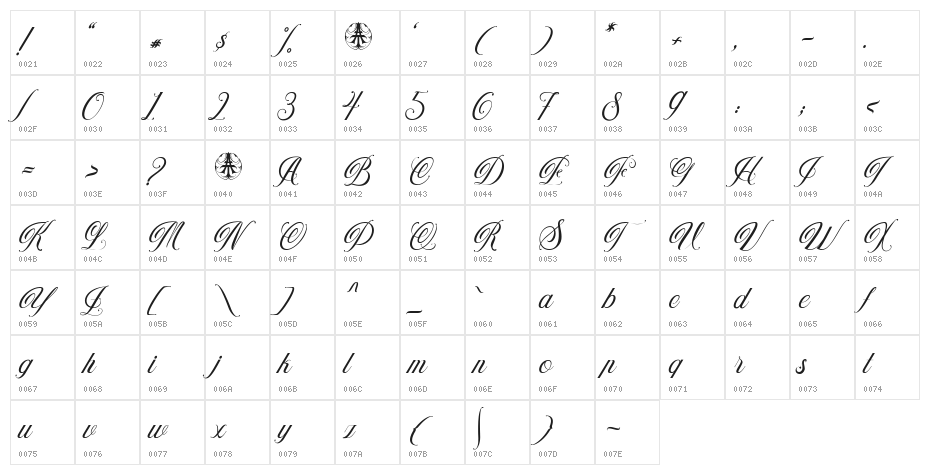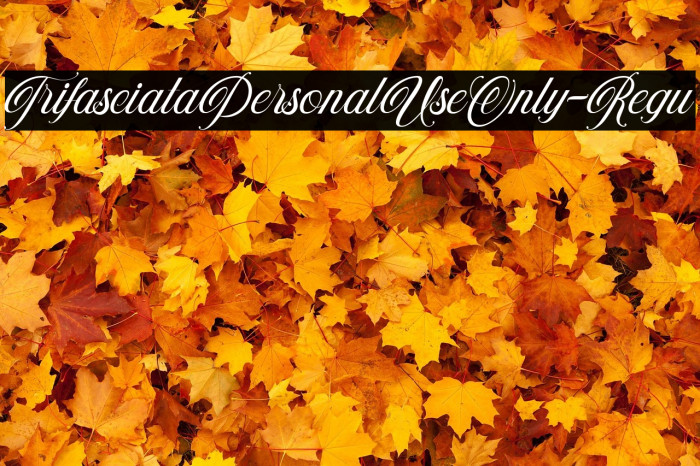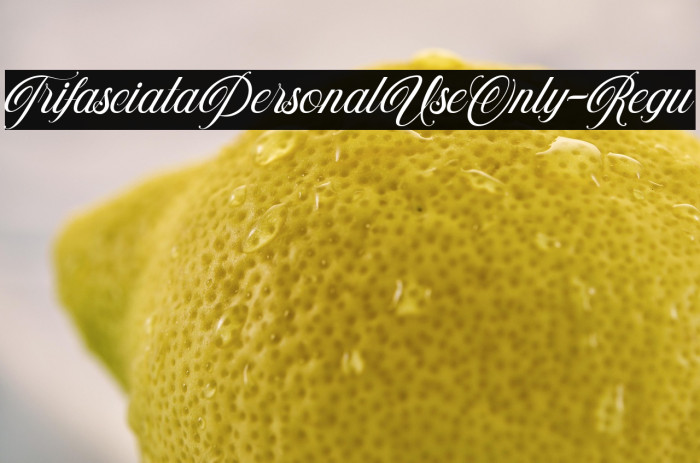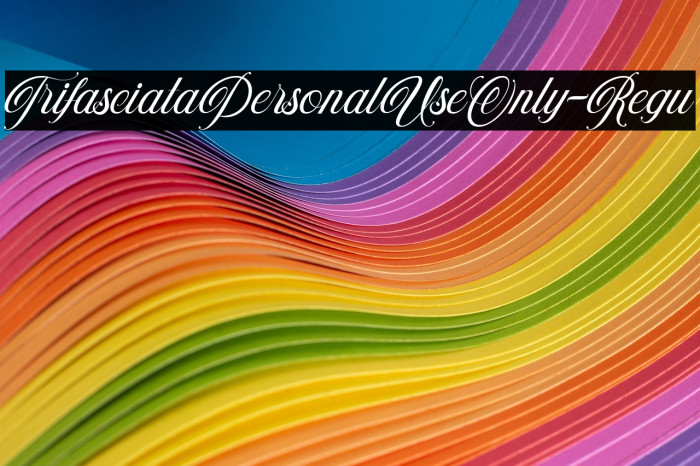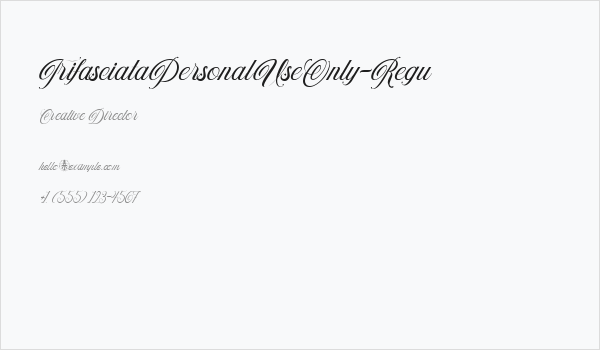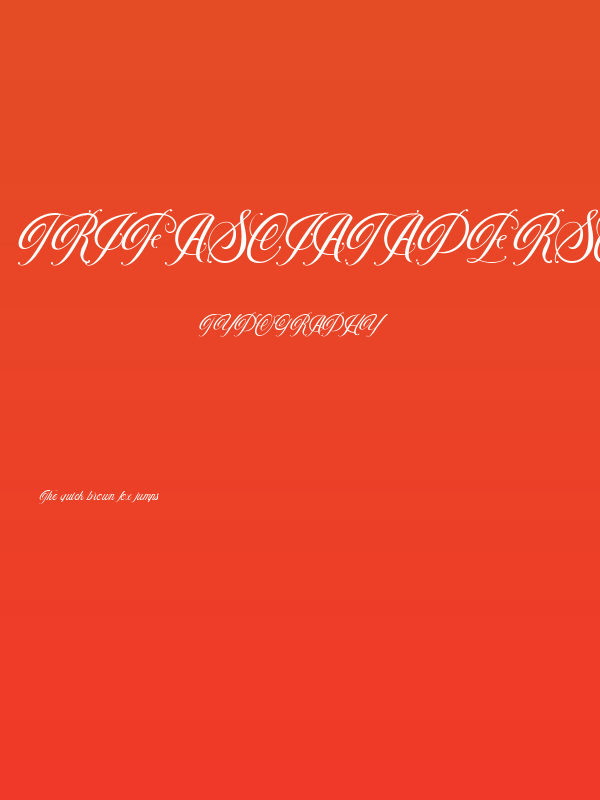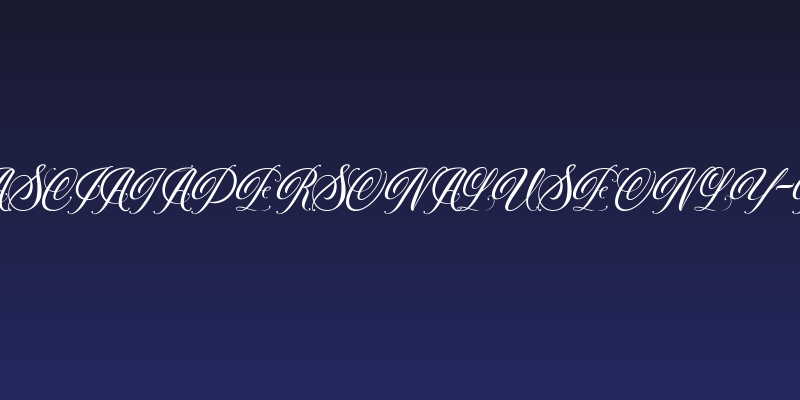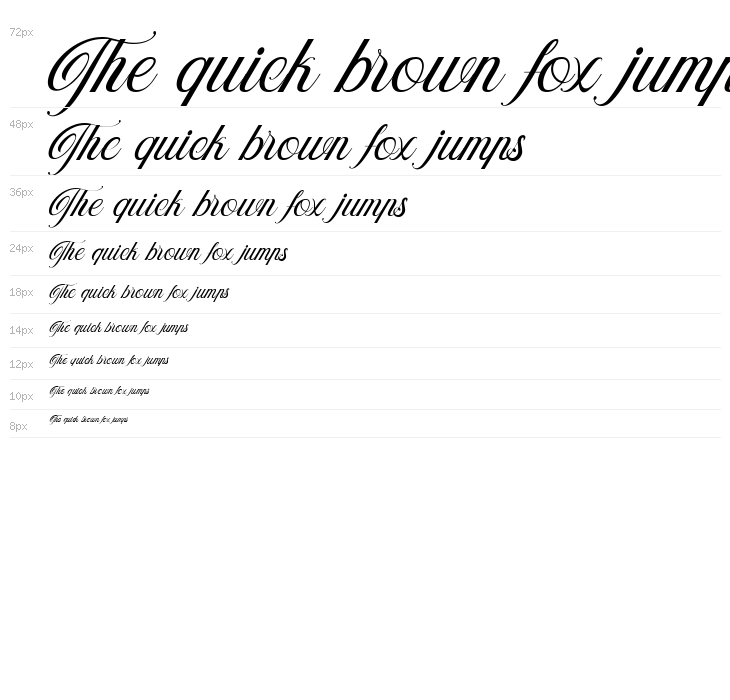
TrifasciataPersonalUseOnly-Regu Font
TrifasciataPersonalUseOnly-Regu Description
This elegant script font features intricate swashes and flourishes, giving it a sophisticated and ornamental appearance. The uppercase letters are highly decorative, with elaborate loops and curves that add a touch of luxury and refinement. The lowercase letters maintain a more subdued elegance, with smooth, flowing lines that ensure readability while still offering a sense of style. The numerals and special characters are consistent with the overall ornate design, making them suitable for decorative purposes. This font's intricate details and flowing forms make it ideal for projects that require a touch of elegance and sophistication.
| Proposed Projects | Wedding invitations, luxury branding, elegant packaging, decorative signage. |